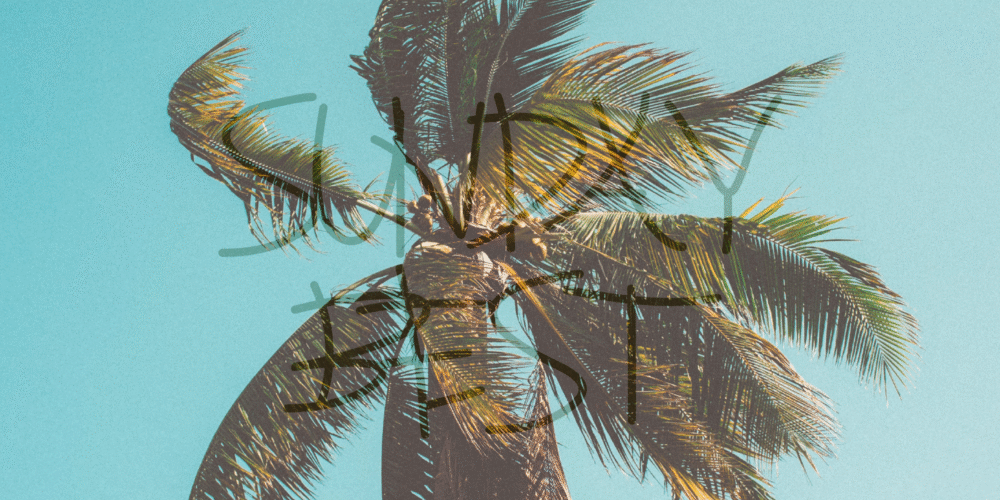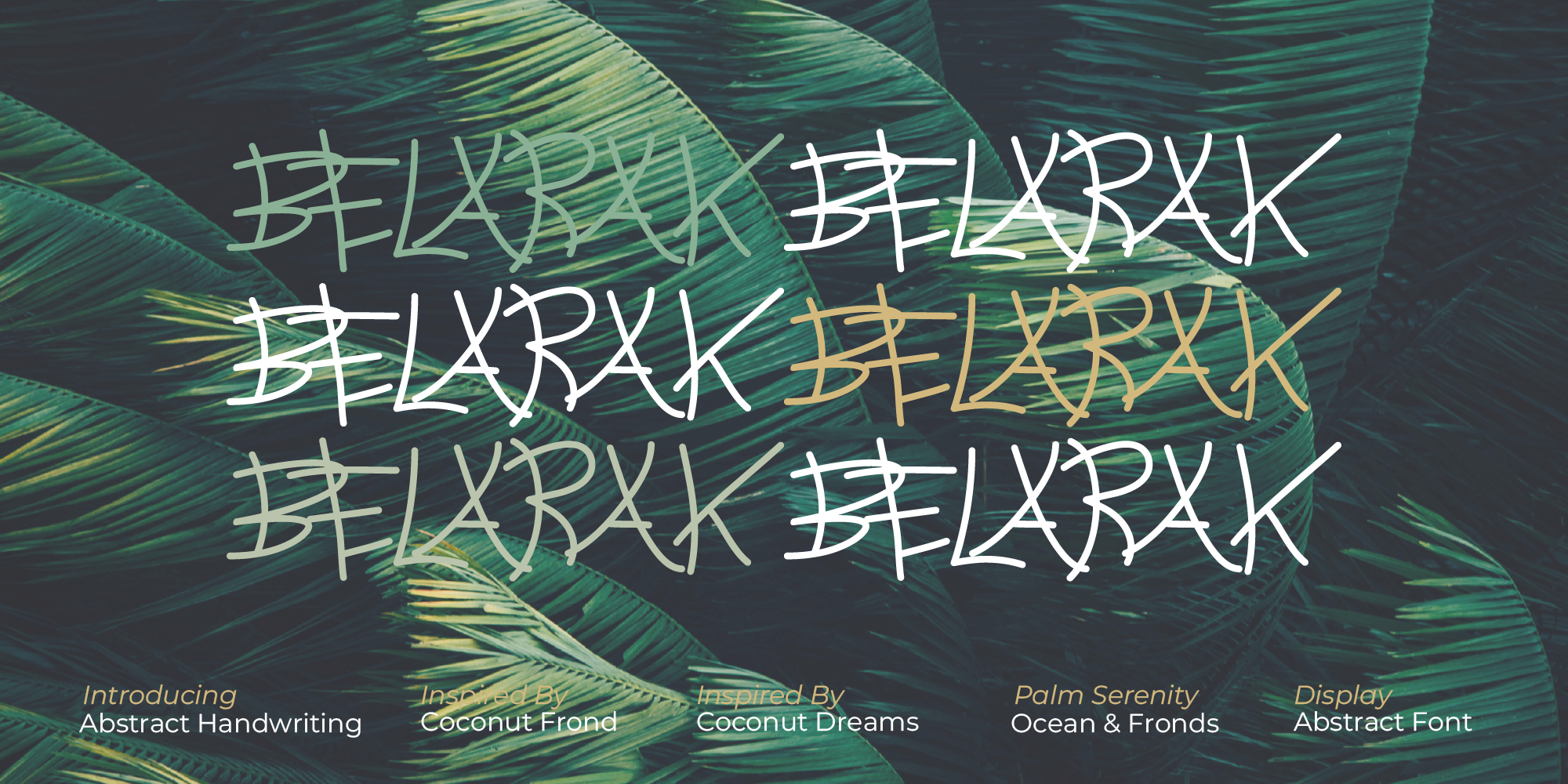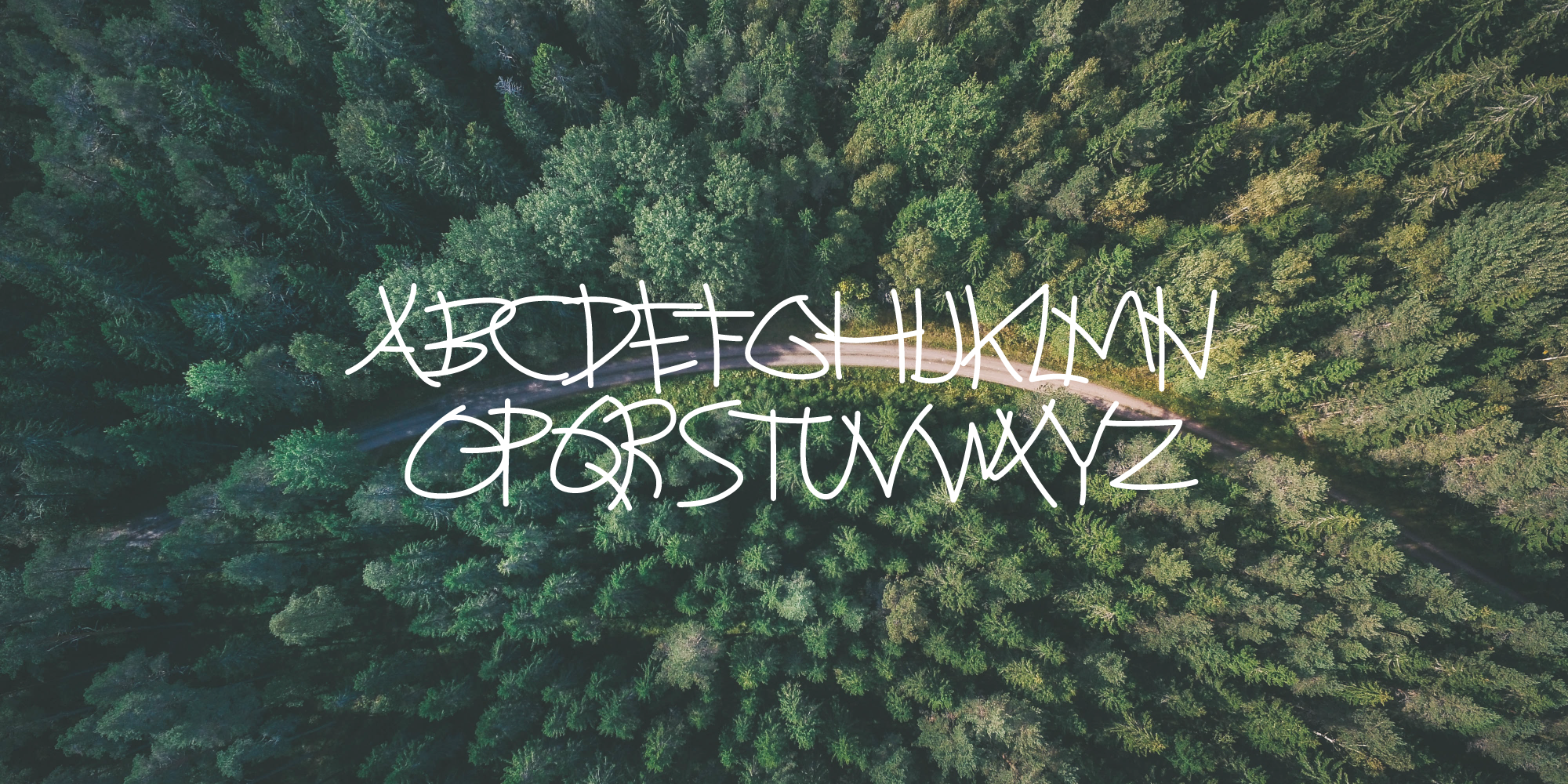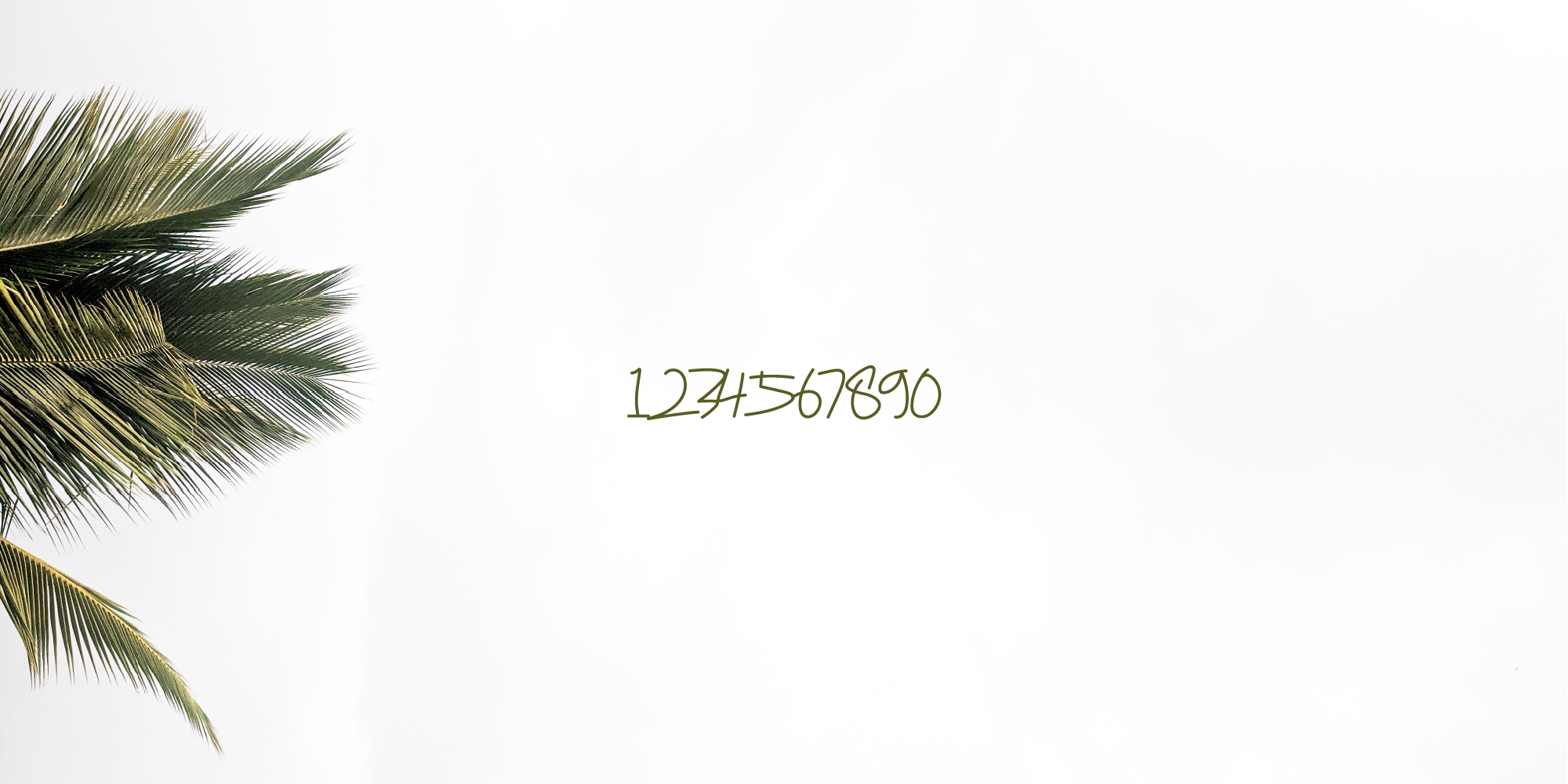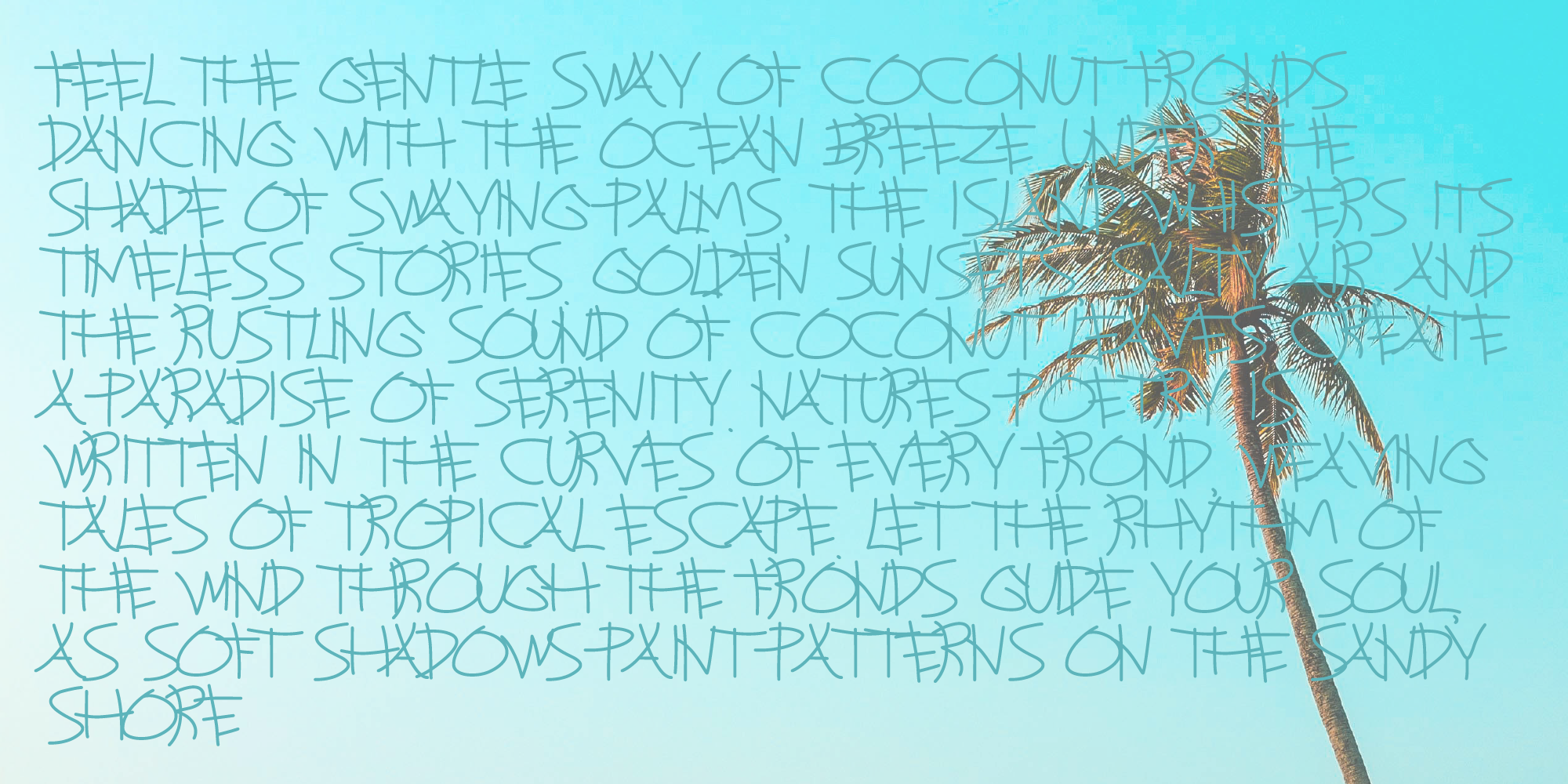
Belarak – A Tropical & Elegant Typeface
Inspired by the slender, elongated stalks of coconut fronds, Belarak captures a graceful fusion of organic flow and structured elegance. Its distinctive letterforms reflect the natural rhythm and resilience of tropical foliage, resulting in a design that feels both exotic and contemporary.
With its refined curves and tropical charm, Belarak is perfect for branding, editorial layouts, packaging, logos, and any creative project that seeks to channel the bold beauty of nature with a sophisticated twist.